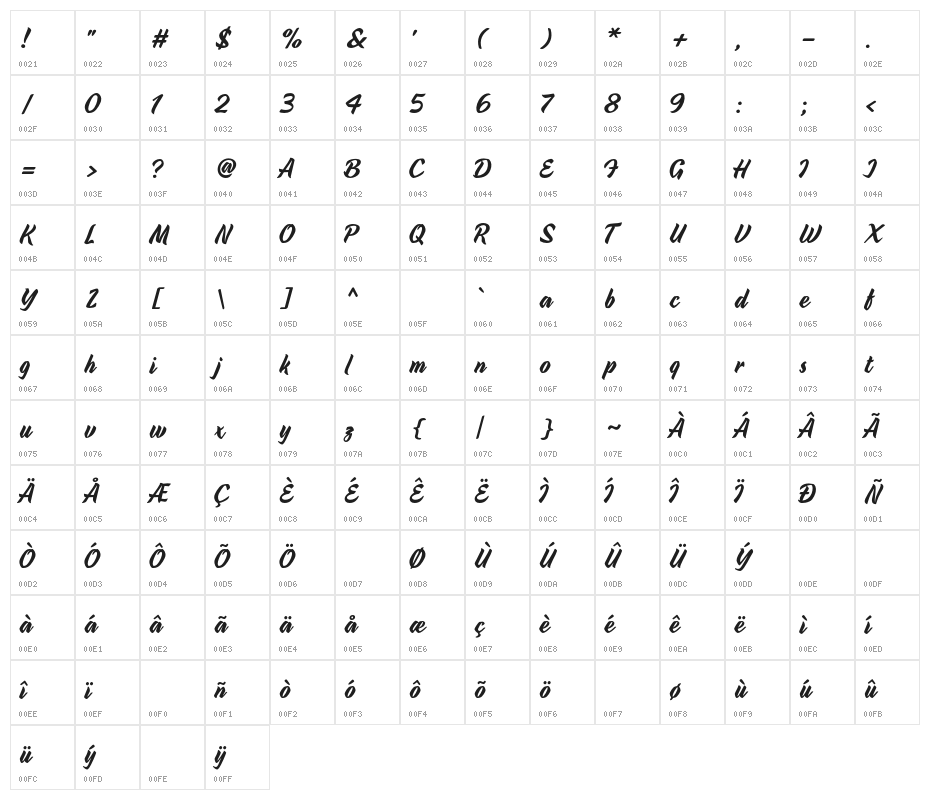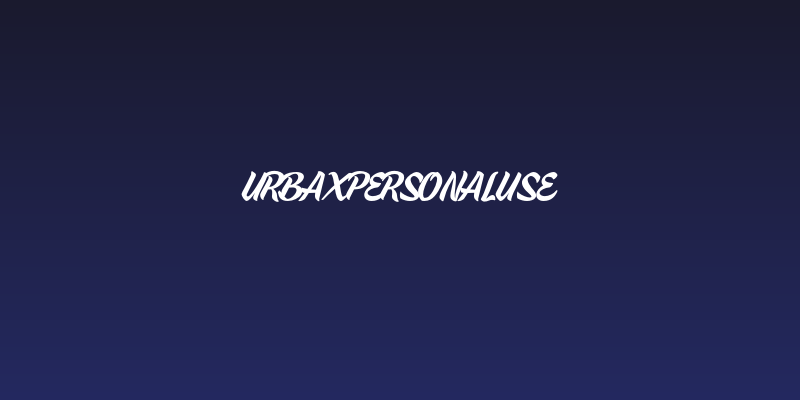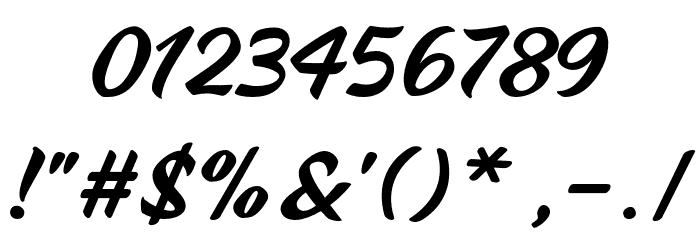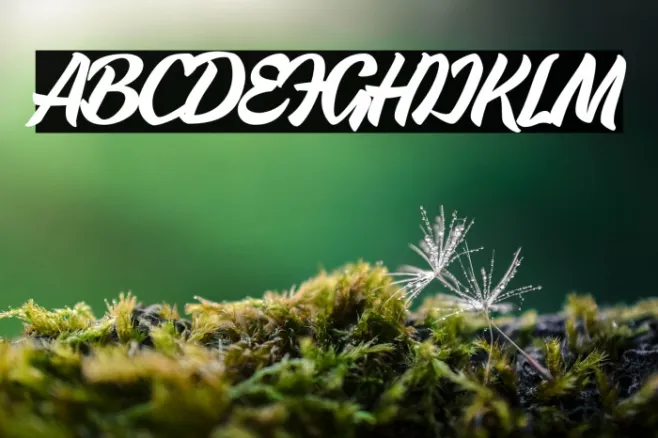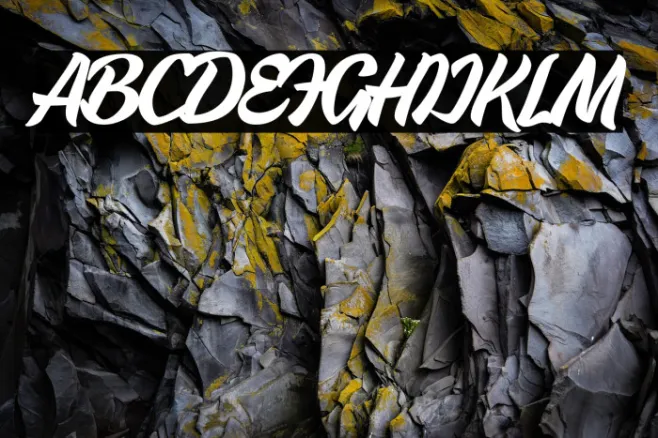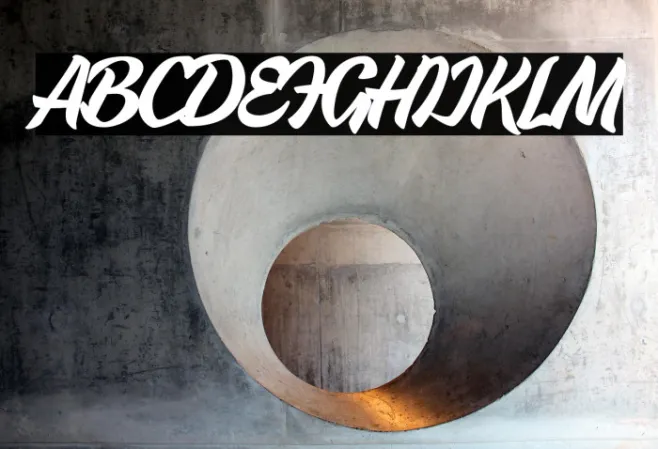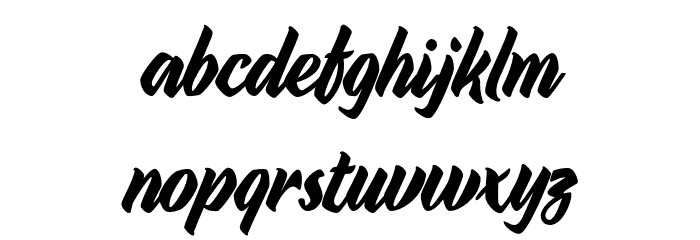
UrbaxPersonalUse Font
UrbaxPersonalUse Description
This font features a bold, cursive style with a strong emphasis on fluidity and elegance. The characters are interconnected, creating a seamless flow that is both dynamic and visually appealing. The uppercase letters are slightly larger and more pronounced, adding a sense of grandeur and sophistication. The lowercase letters maintain the same fluidity, with smooth curves and consistent stroke widths. The numerals are bold and clear, ensuring readability while maintaining the overall aesthetic. Special characters are integrated seamlessly, ensuring versatility in various design contexts.